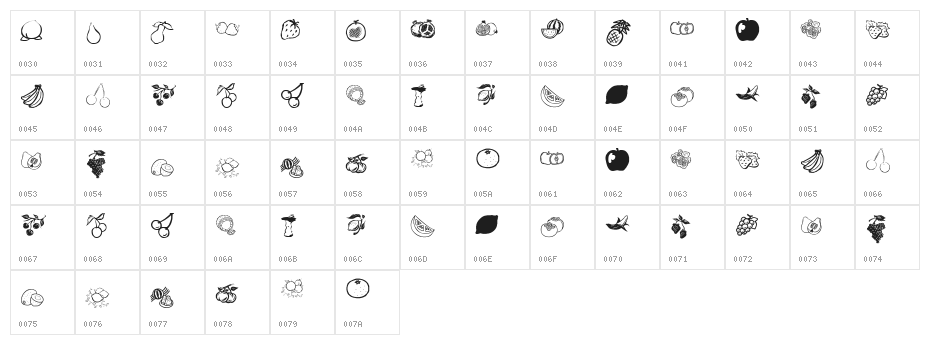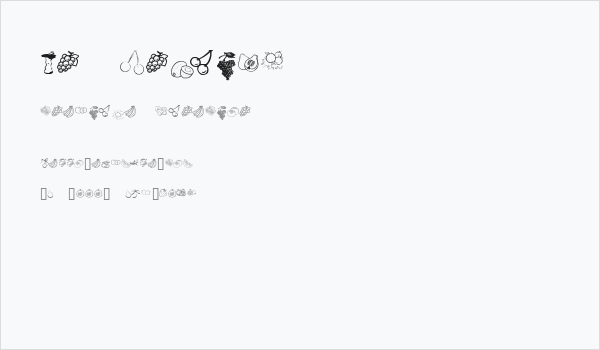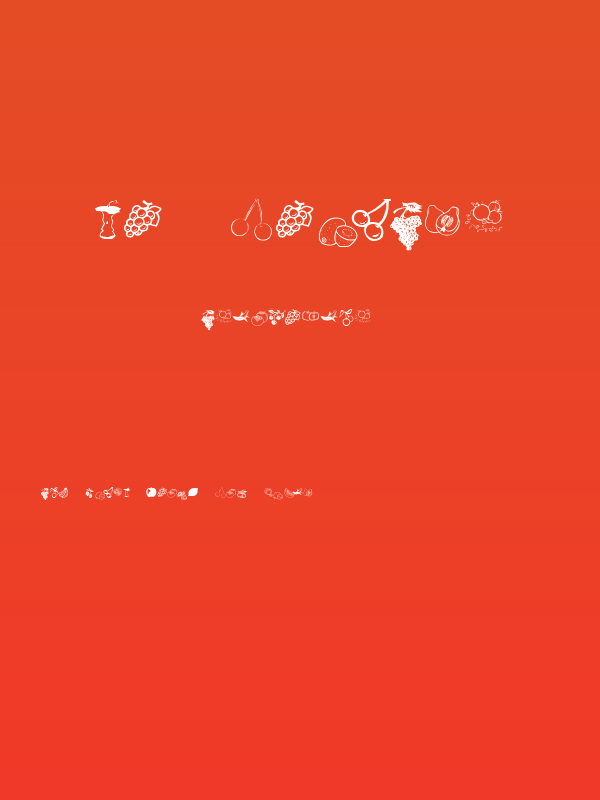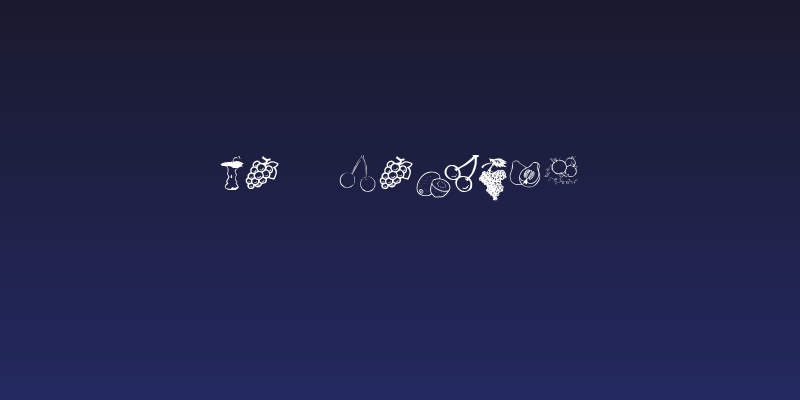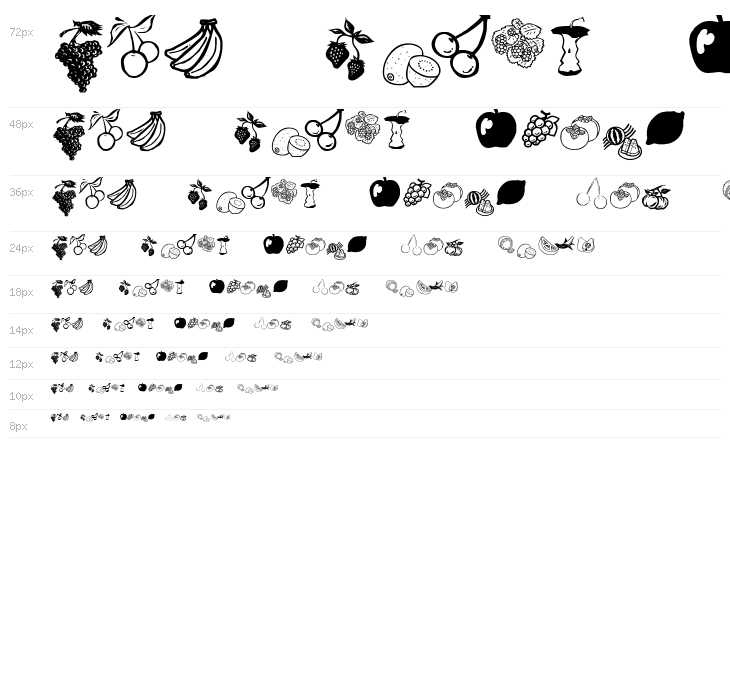
KR Fruitsy Font
KR Fruitsy Description
A playful, hand-drawn dingbat font featuring a variety of outlined and filled fruit illustrations, each glyph representing a different fruit or fruit slice with whimsical, sketch-like details.
Overall StyleDecorative, Playful, Hand-drawn
Use CaseIcons, Decorative elements, Themed graphics
Proposed ProjectsChildrenÒ€ℒs books, food packaging, recipe cards, educational materials, playful branding, decorative borders.